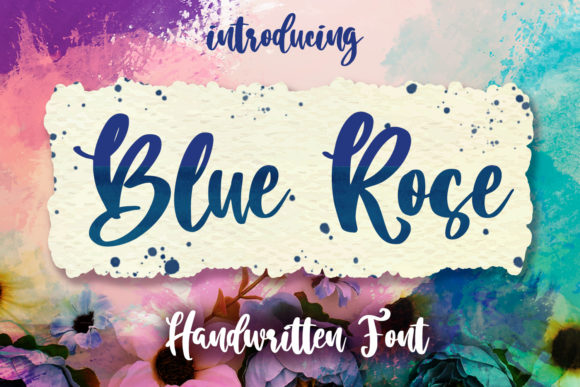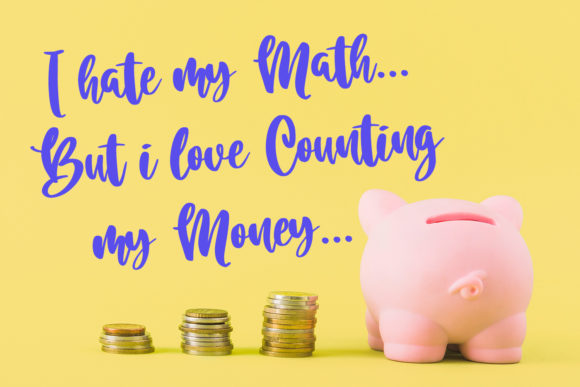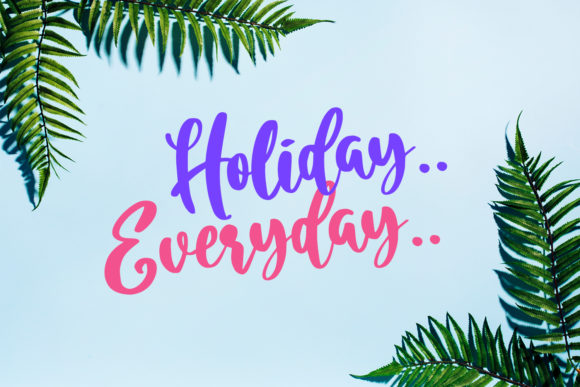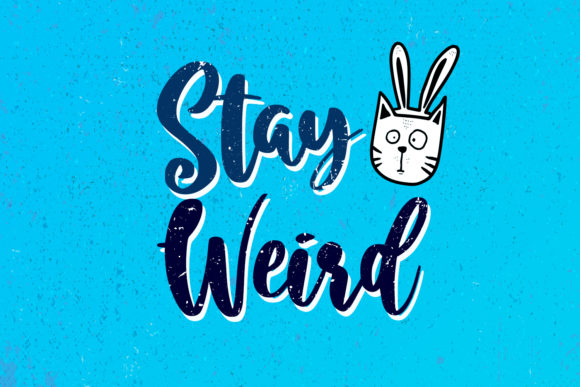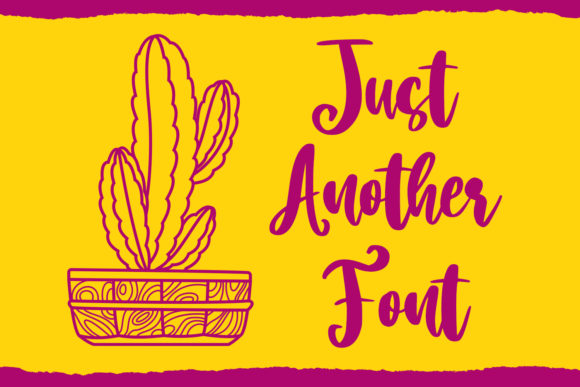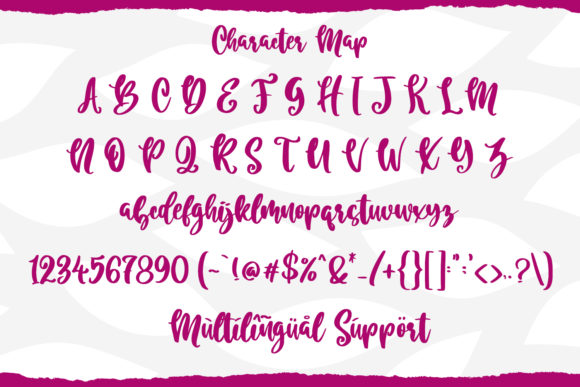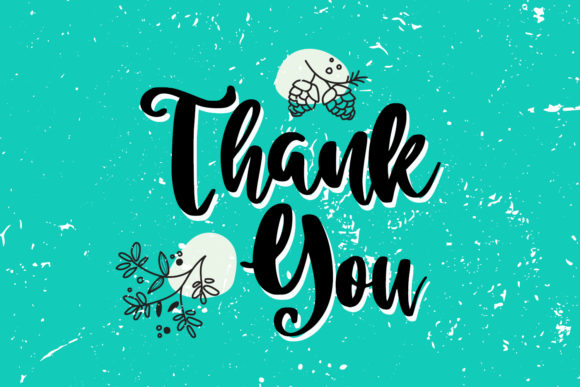
HomeScript FontsBlue Rose Script Font Script Fonts Blue Rose Script Font FacebookXPinterestWhatsApp Blue Rose Script Font Poster 2 Blue Rose Script Font Poster 3 Blue Rose Script Font Poster 4 Blue Rose Script Font Poster 5 Blue Rose Script Font Poster 6 Blue Rose Script Font Poster 7 About Blue Rose Script Font Blue Rose is a fun and cute handwritten font with a unique vibe. Get inspired by its unique charm. DOWNLOAD NOW People also explored Cherdas Font Wednesday Font Royal Bengal Tiger Aleon Font Minoesta Font Whitney Script Font Handwritten Font Bundle Vol 9 Charlotte Font Zainiver Font 329 0 TagsBlue Rose Script Font Previous articleBetter Summer Script FontNext articleFollow Your Dreams Font LEAVE A REPLY Cancel reply Comment: Please enter your comment! Name:* Please enter your name here Email:* You have entered an incorrect email address! Please enter your email address here Website: Save my name, email, and website in this browser for the next time I comment. Personal Use Free Kidly Personal Use Free Read more about this font My Shine Personal Use Free Read more about this font Eaglese Personal Use Free Read more about this font Mowgli Personal Use Free Read more about this font BLOG Free vs Paid Fonts: Why Investing in Premium Fonts Is Worth It Free vs Paid Fonts: Why Premium Fonts Are Worth It in 2025 The debate of free vs paid fonts continues in the design world. While... Exploring Font Trends How to Cut Any Font on Cricut: Convert a Font to SVG (Free) 5 Fonts That Will Dominate Design Trends in 2026